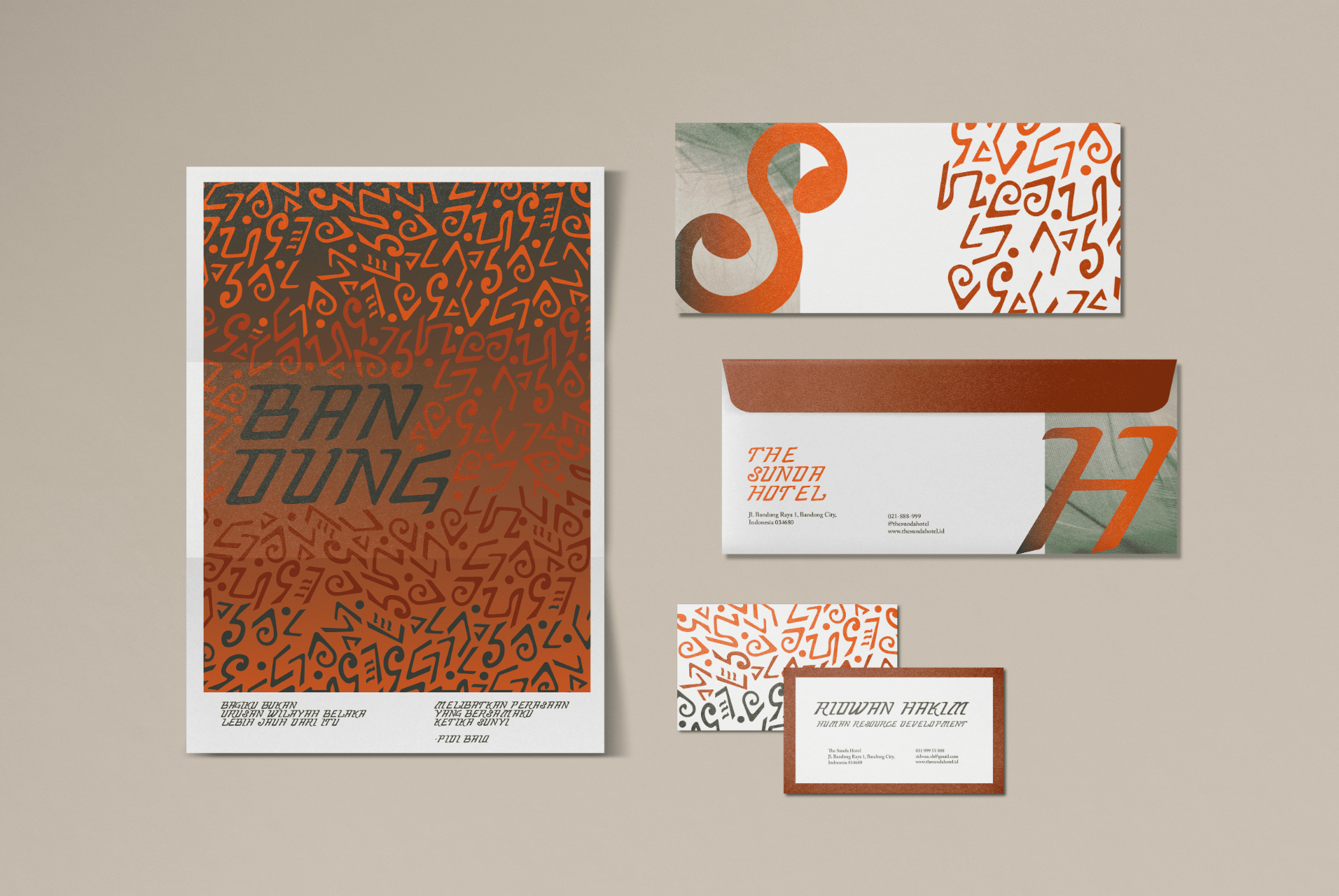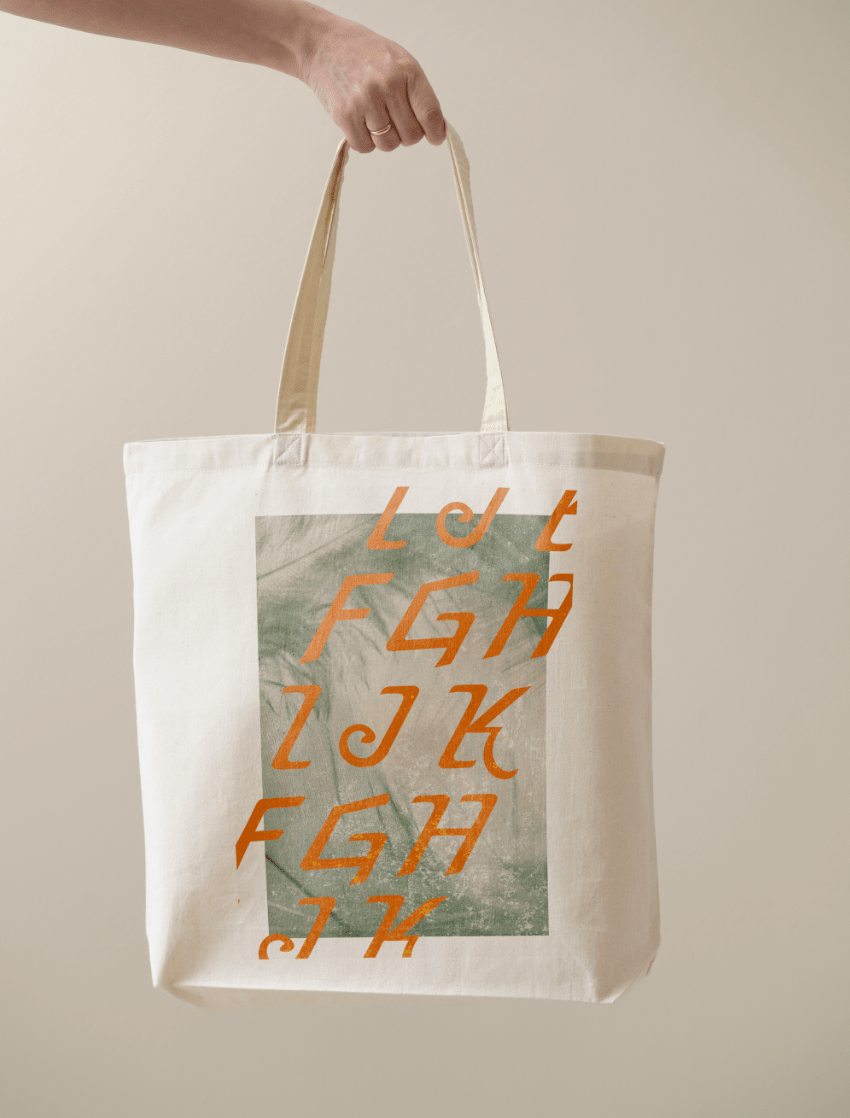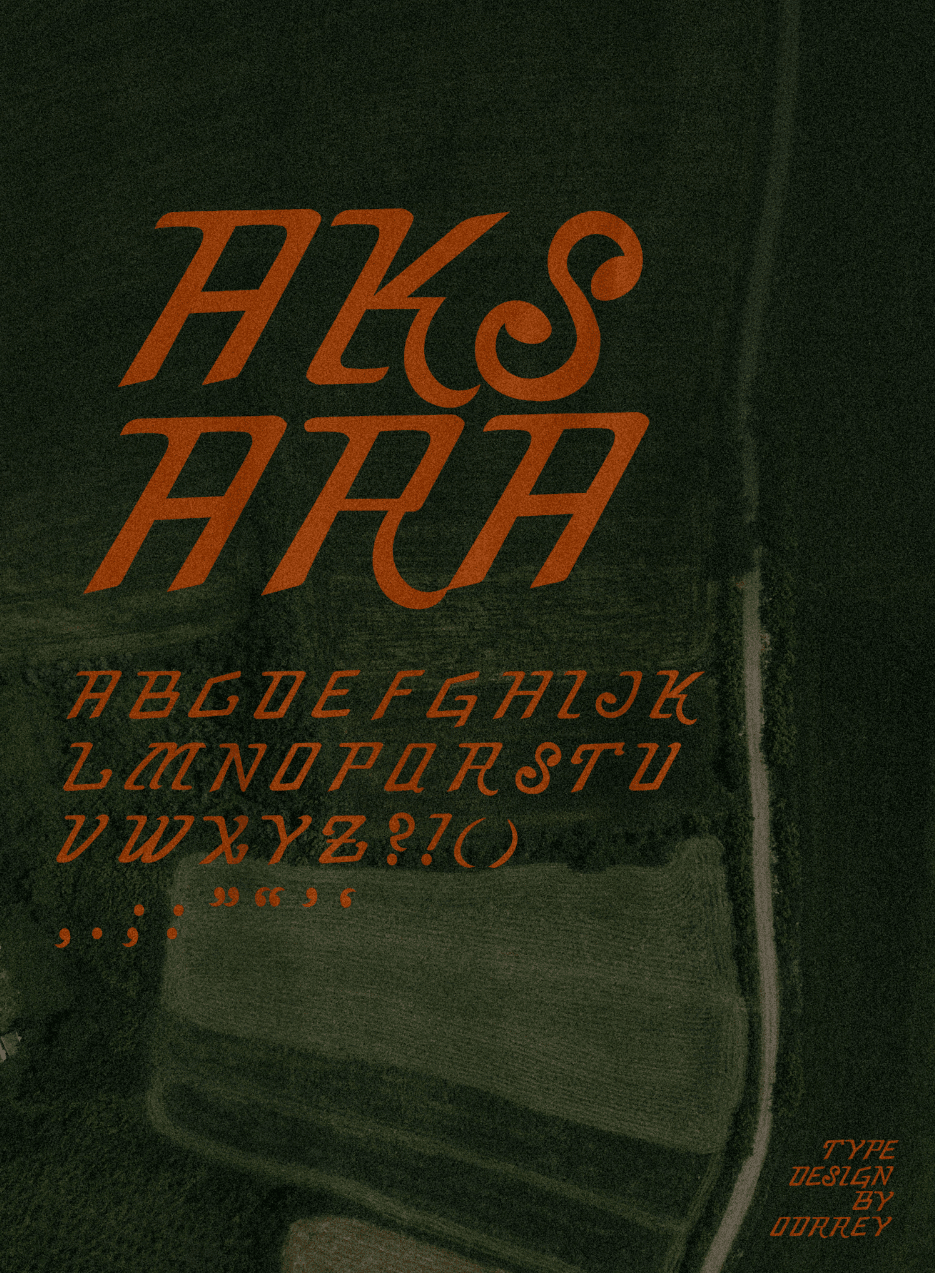
Type Design | Aksara Font
'Aksara' Font is a Sundanese script-inspired typeface that I created using Adobe Illustrator and FontForge. All of the letters were inspired by the nuances and shapes of the Sundanese script (Indonesian ethnic group in Java Island).
As a girl who was born in Bandung, the main reason I created 'Aksara' typeface is to preserve the Sundanese script as well as to introduce the Sunda culture to the public through type design. So actually, this typeface can be used for everything that relates with Sundanese culture, it can be posters, merchandise, prints, logos for sundanese restaurant, and many more.
Aksara Font is a Sundanese script-inspired typeface that I designed.